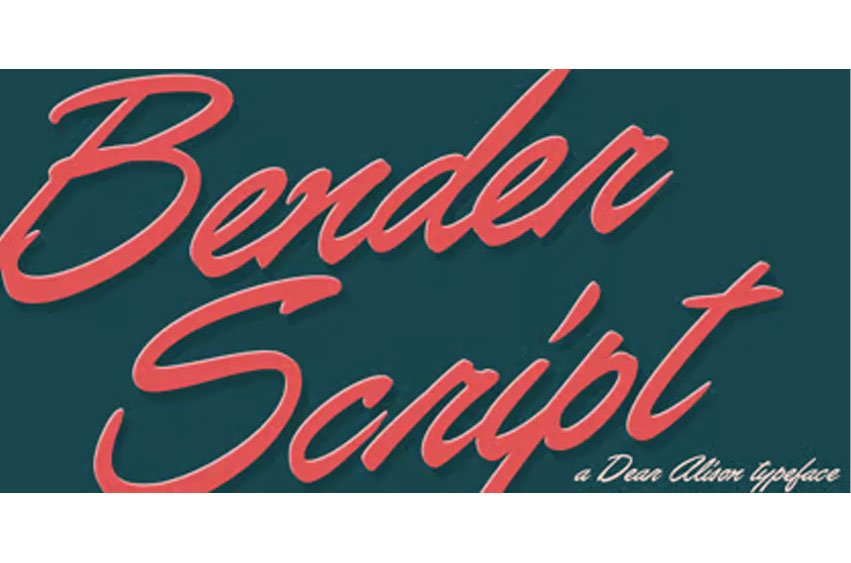
Bender Script Font is a refined, expressive script inspired by the mid-century hand lettering of advertising artist Chas Bluemlein, whose elegant work graced numerous cosmetic and beauty campaigns of the era. Drawn from carefully studied historical samples, Bender Script captures the confidence, glamour, and fluid movement of classic advertising lettering.
The strokes feel intentional and expressive, balancing dramatic curves with controlled structure for a look that is both passionate and polished. This script brings vintage sophistication to modern design. It carries the elegance of mid-century cosmetic ads while remaining versatile for contemporary branding, packaging, editorial work, and display typography. Bender Script includes uppercase and lowercase characters, multilingual language support, numbers, punctuation, and extended symbol coverage.
A selection of swash alternates is included, allowing designers to add flourish and personality where desired while maintaining balance and readability. Ideal for beauty branding, luxury packaging, cosmetic lines, fashion labels, boutique logos, editorial headlines, vintage-inspired campaigns, and expressive signature treatments, Bender Script delivers timeless advertising charm with modern usability. For projects that call for glamour, confidence, and classic lettering artistry, Bender Script brings heritage craftsmanship into today’s design landscape.